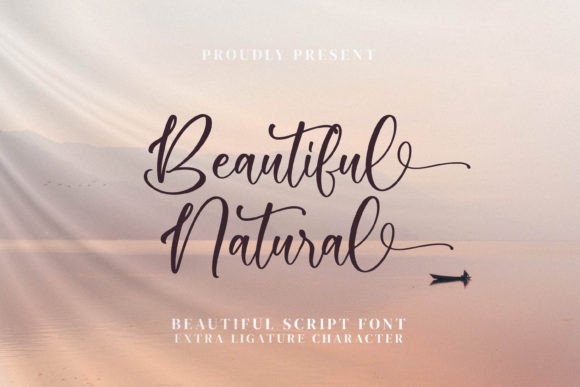
Introducing Beautiful Natural Font, a captivating script font designed specifically for wedding signs and beyond. Created with love by integritypestudio, this font is more than just a typographic masterpiece - it's an emotional journey waiting to be explored.
Imagine a font that effortlessly captures the essence of elegance, romance, and natural beauty. Beautiful Natural Font does just that, with its sweet and friendly handwritten style that exudes charm and sophistication. With every stroke, it adds a touch of magic to your designs, making them truly unforgettable.
Whether you're a bride-to-be looking for the perfect font to adorn your wedding invitations or a creative soul searching for a versatile typeface to bring life to your projects, Beautiful Natural Font is the answer. Its unique and natural aesthetic blends seamlessly into any design, elevating it to new heights of visual appeal.
Wedding signs come alive when adorned with Beautiful Natural Font. Picture your guests being captivated by its graceful curves and delicate strokes, instantly setting the tone for a magical celebration. From save-the-dates to place cards, this font brings a sense of romance and elegance that will leave a lasting impression on your loved ones.
But the beauty of Beautiful Natural Font doesn't stop there. Its versatility knows no bounds, making it the ideal choice for a wide range of projects. Whether you're designing logos, branding materials, social media graphics, or even printed merchandise, this font adds a touch of authenticity and warmth that sets your creations apart from the rest.
Unlock a world of creativity with Beautiful Natural Font as your trusted companion. Let your imagination run wild as you explore its endless possibilities. Create stunning quotes, personalized gifts, and heartfelt messages that evoke emotions and connect with your audience on a deeper level.
When you choose Beautiful Natural Font, you're not just acquiring a font - you're gaining a powerful tool that empowers your creativity. Its keyword, "Font For Wedding Sign," isn't just a label; it's a promise of elegance, beauty, and an unforgettable experience.
So, why wait? Begin your journey into the world of Beautiful Natural Font today and let its enchanting beauty transform your designs into captivating works of art. Take your projects to new heights, leave a lasting impression, and make every moment truly memorable.